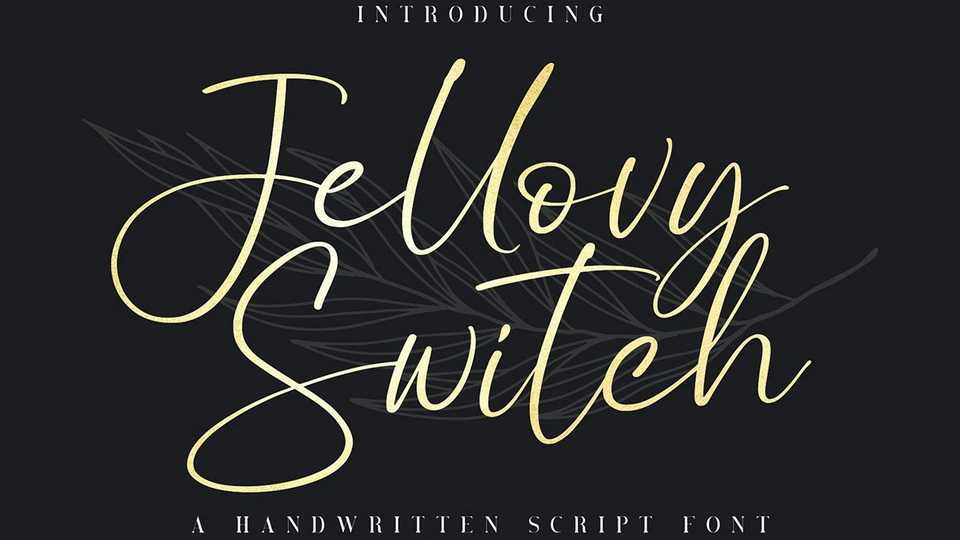
Download Jellovy Switch font, a handwritten script typeface with contemporary, sophisticated accents. Jellovy Switch is perfect for branding, wedding invites and cards, and maybe for label product.